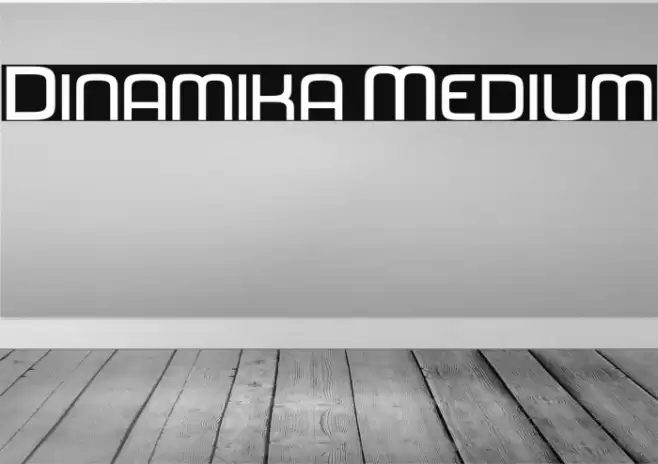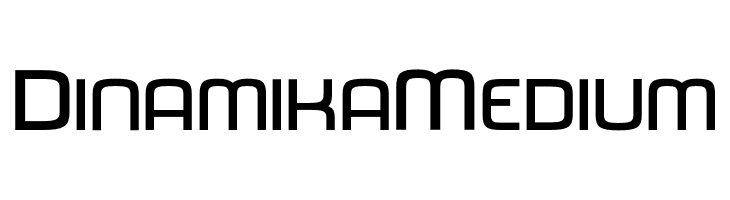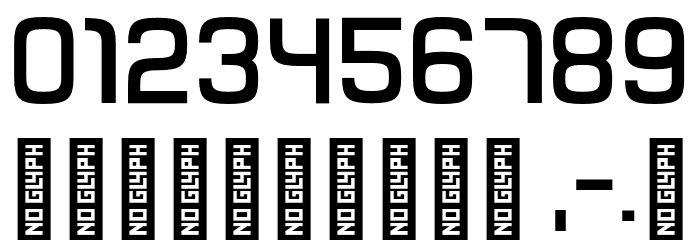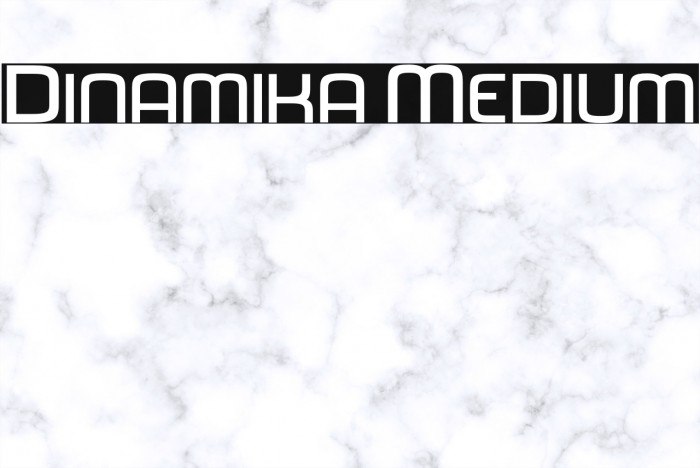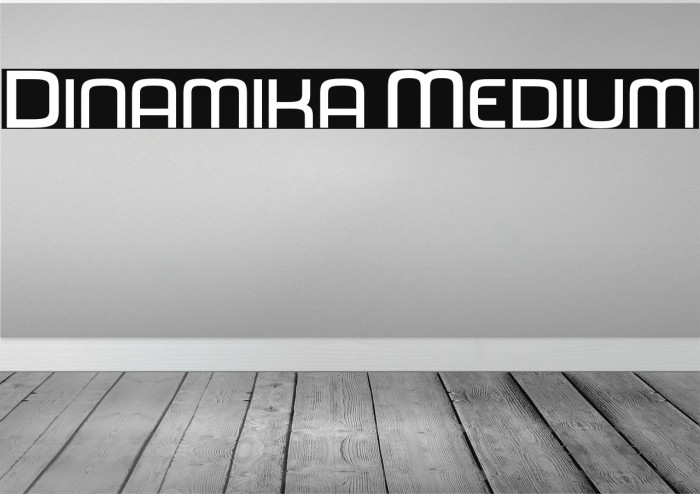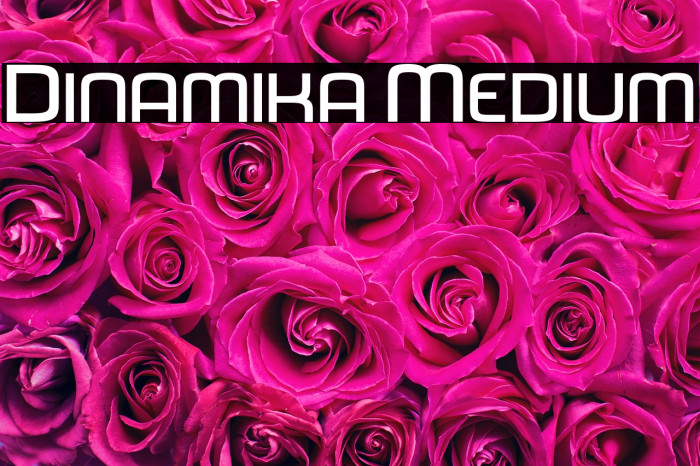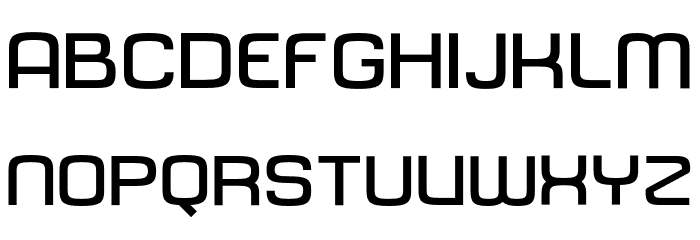
Dinamika Medium Font
Dinamika Medium Description
This font features a modern, geometric design with a clean and streamlined appearance. The characters are uniform in width, giving it a monospaced feel, though it maintains a sense of openness and readability. The strokes are consistent in thickness, providing a medium contrast that enhances clarity without sacrificing style. The rounded edges and smooth curves contribute to a contemporary aesthetic, making it suitable for digital and print media. Its simplicity and precision make it versatile for various applications, from technical documents to creative projects.
A modern, geometric font with consistent stroke thickness and rounded edges from Uncategorized fonts.
- Proposed Projects: Ideal for technical documents, digital interfaces, branding materials, and creative projects requiring a clean, modern look.